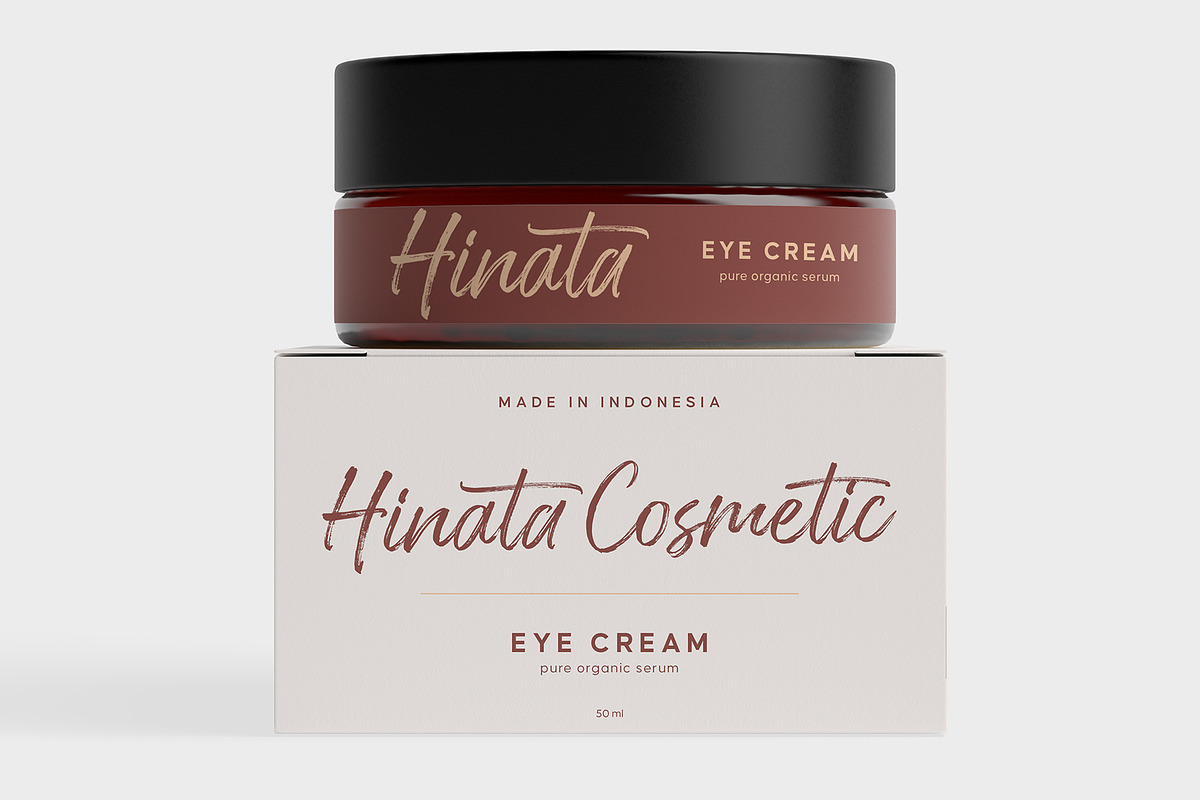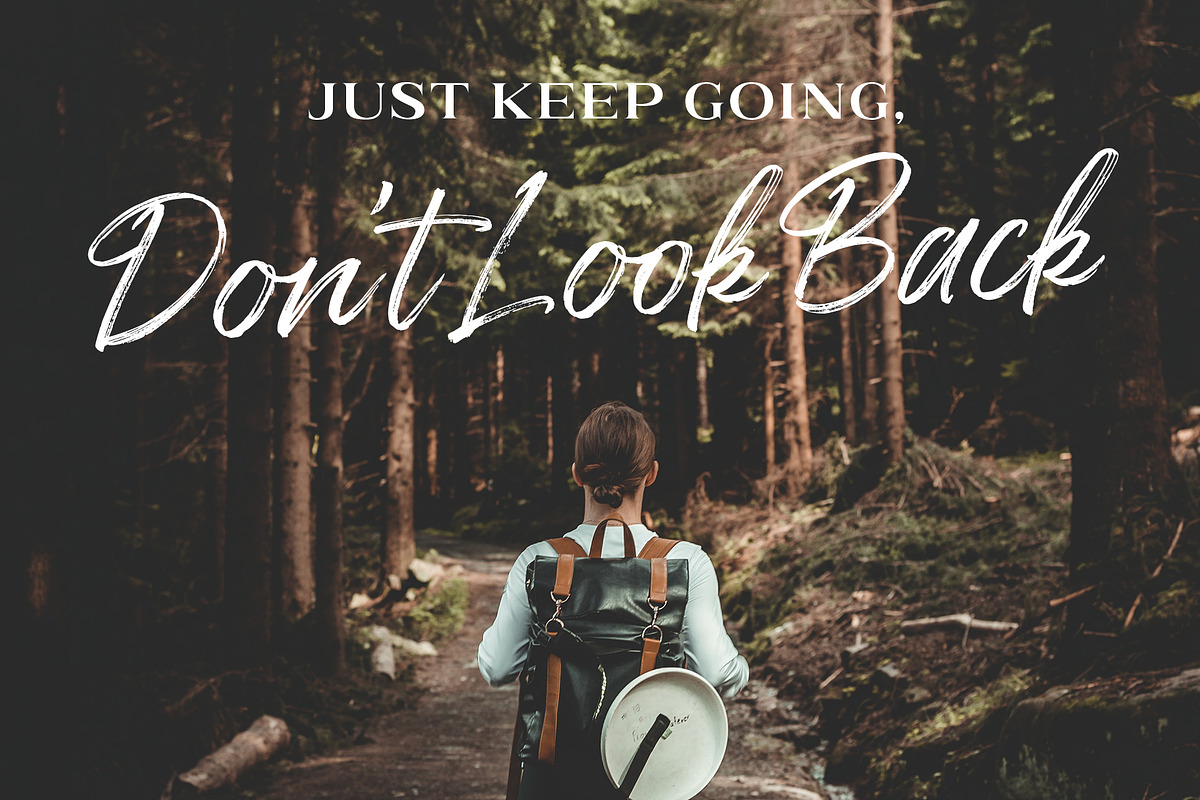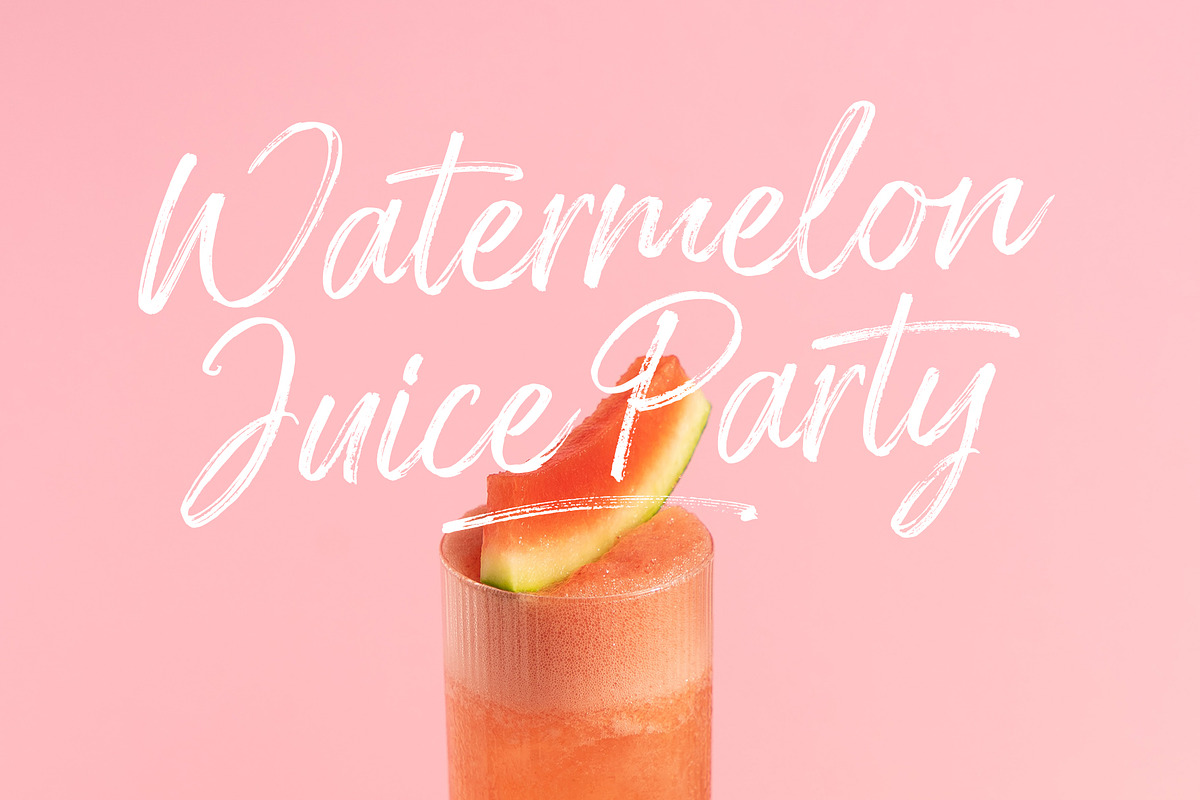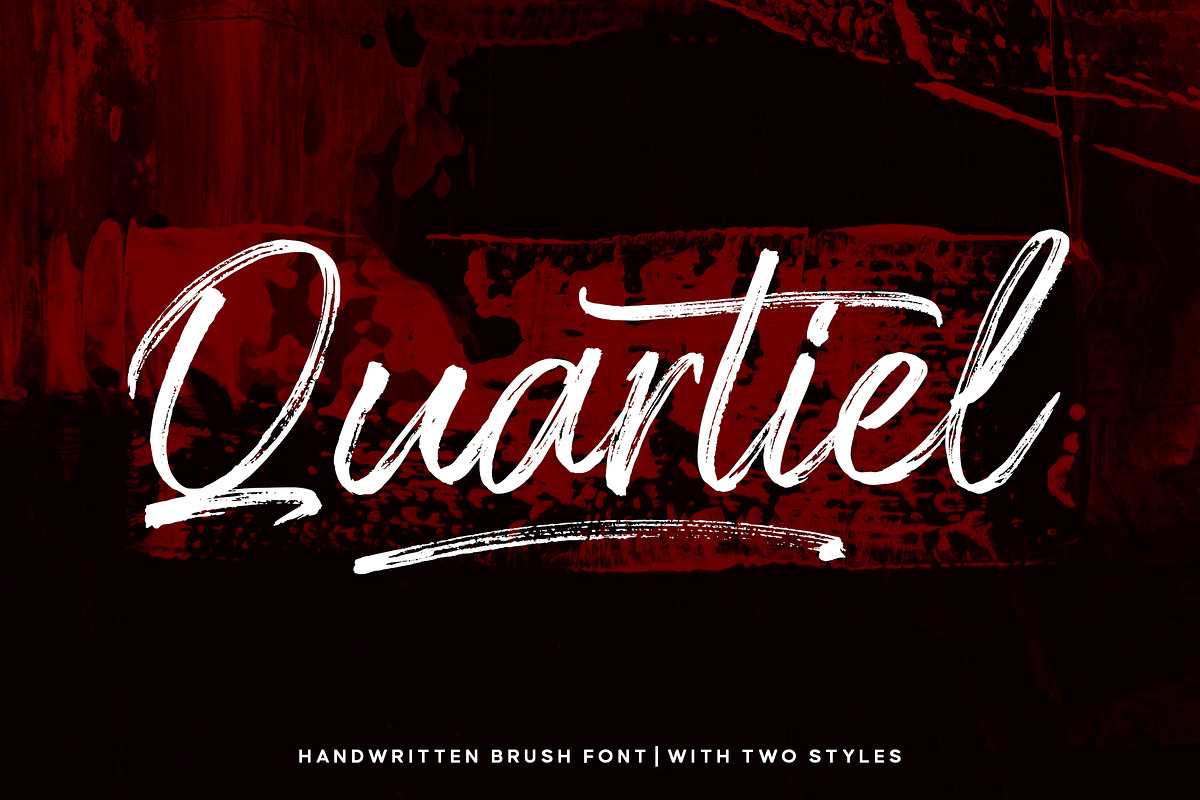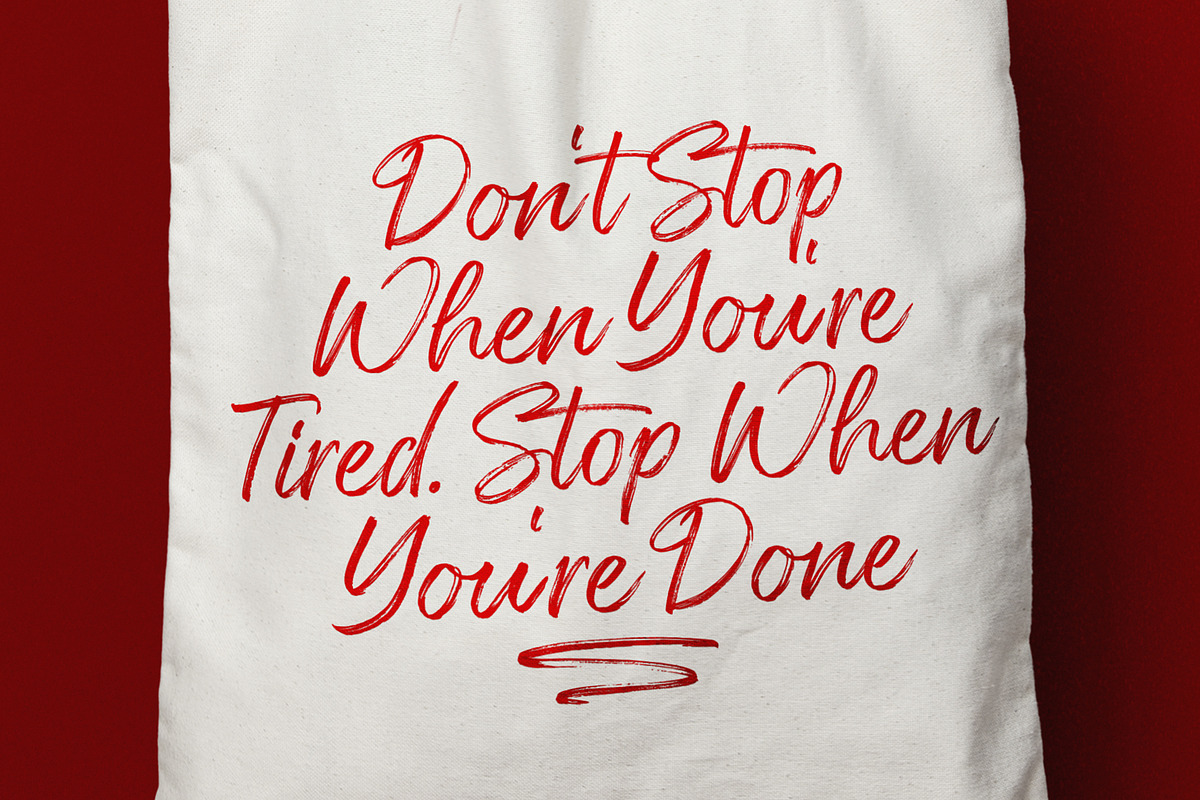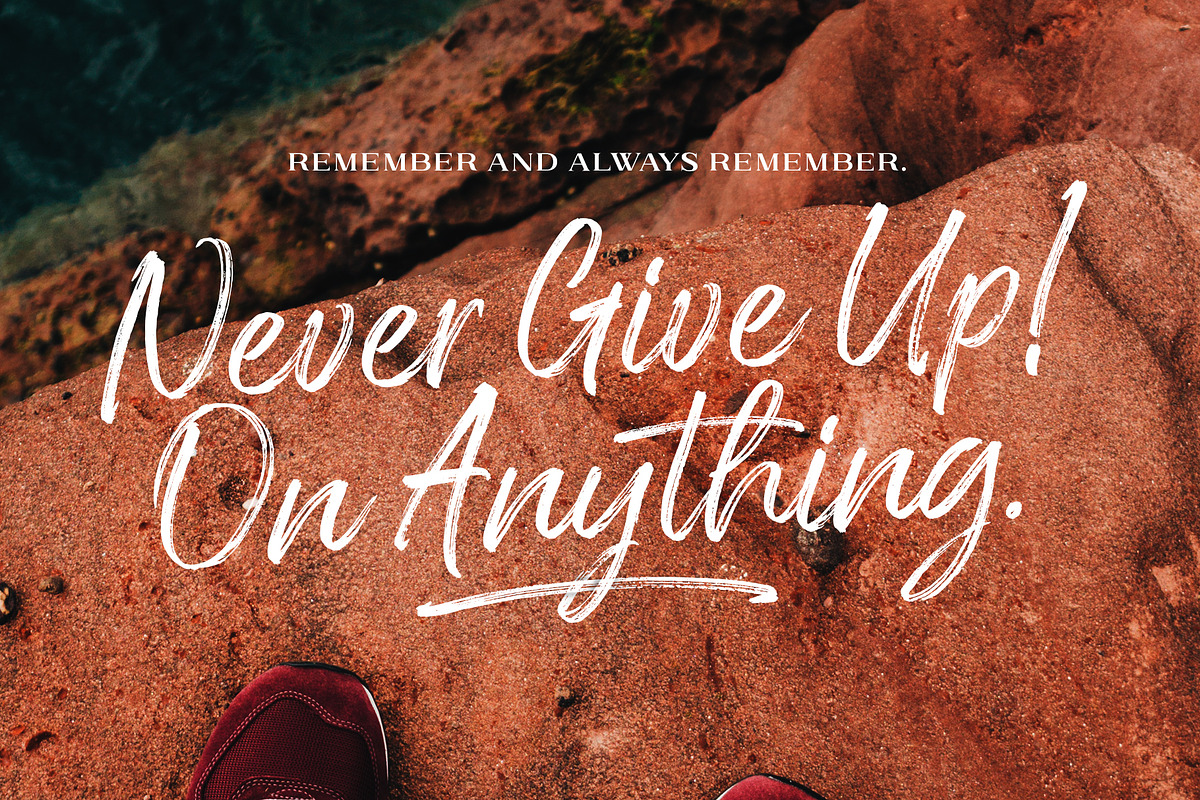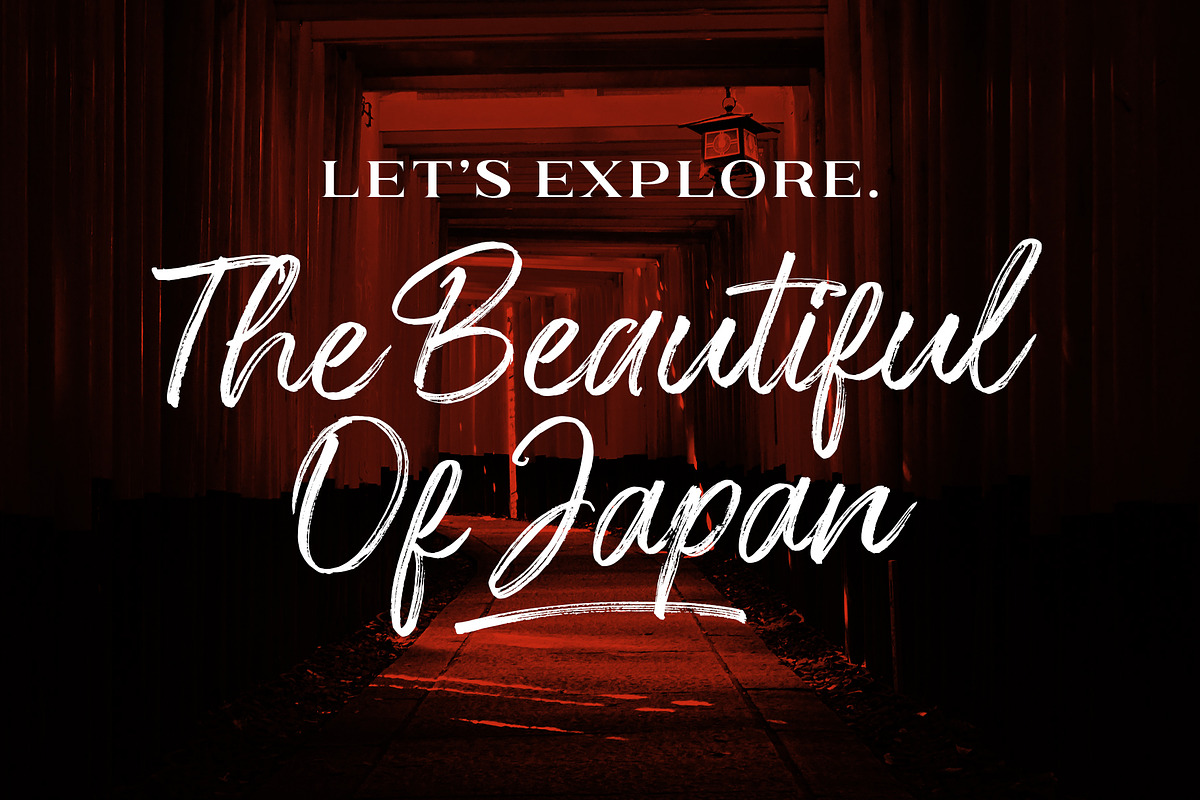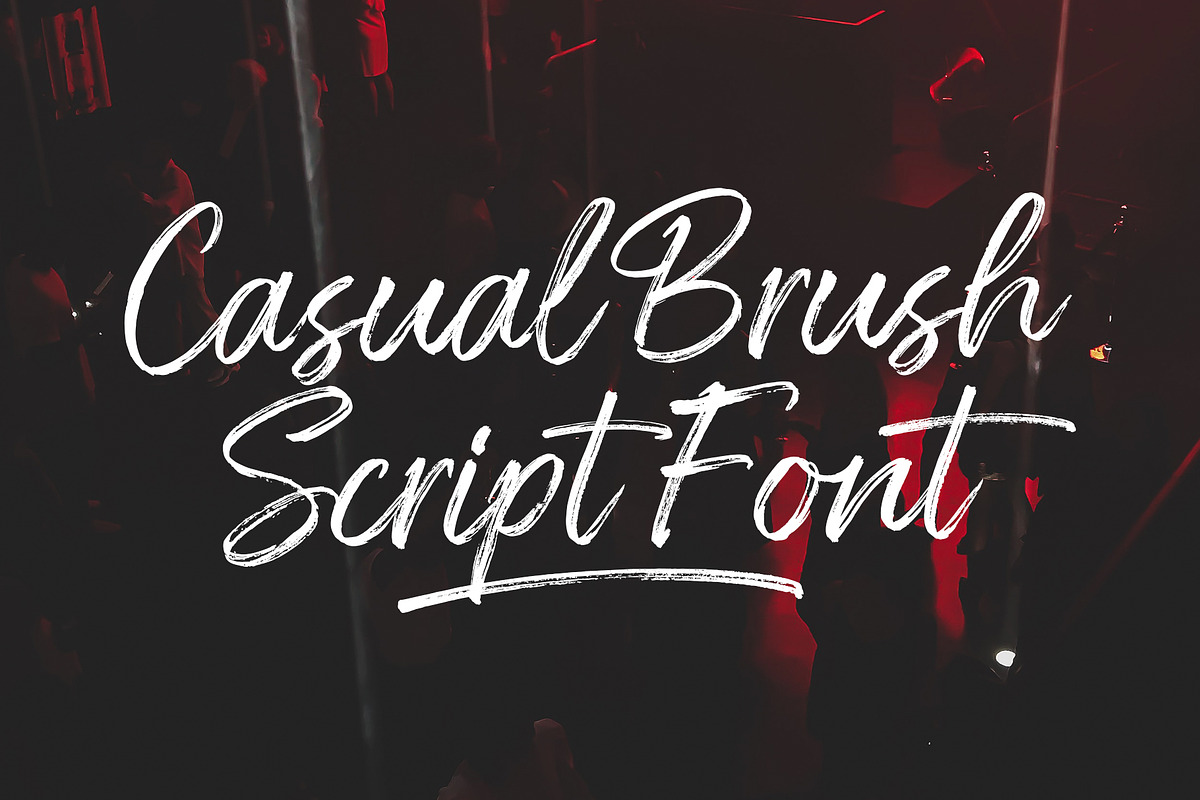
Quartiel Brush Font
Quartiel is a casual handwritten brush font. Written by hand using a dry brush pen. With fast movements. But, keeping the height of each letter the same. Comes in two styles, regular and slanted also include swash as a sweetener.
Suitable for all creative projects, especially in headlines, branding, advertising, packaging, and more. And will give a natural, and authentic touch to each of your projects.